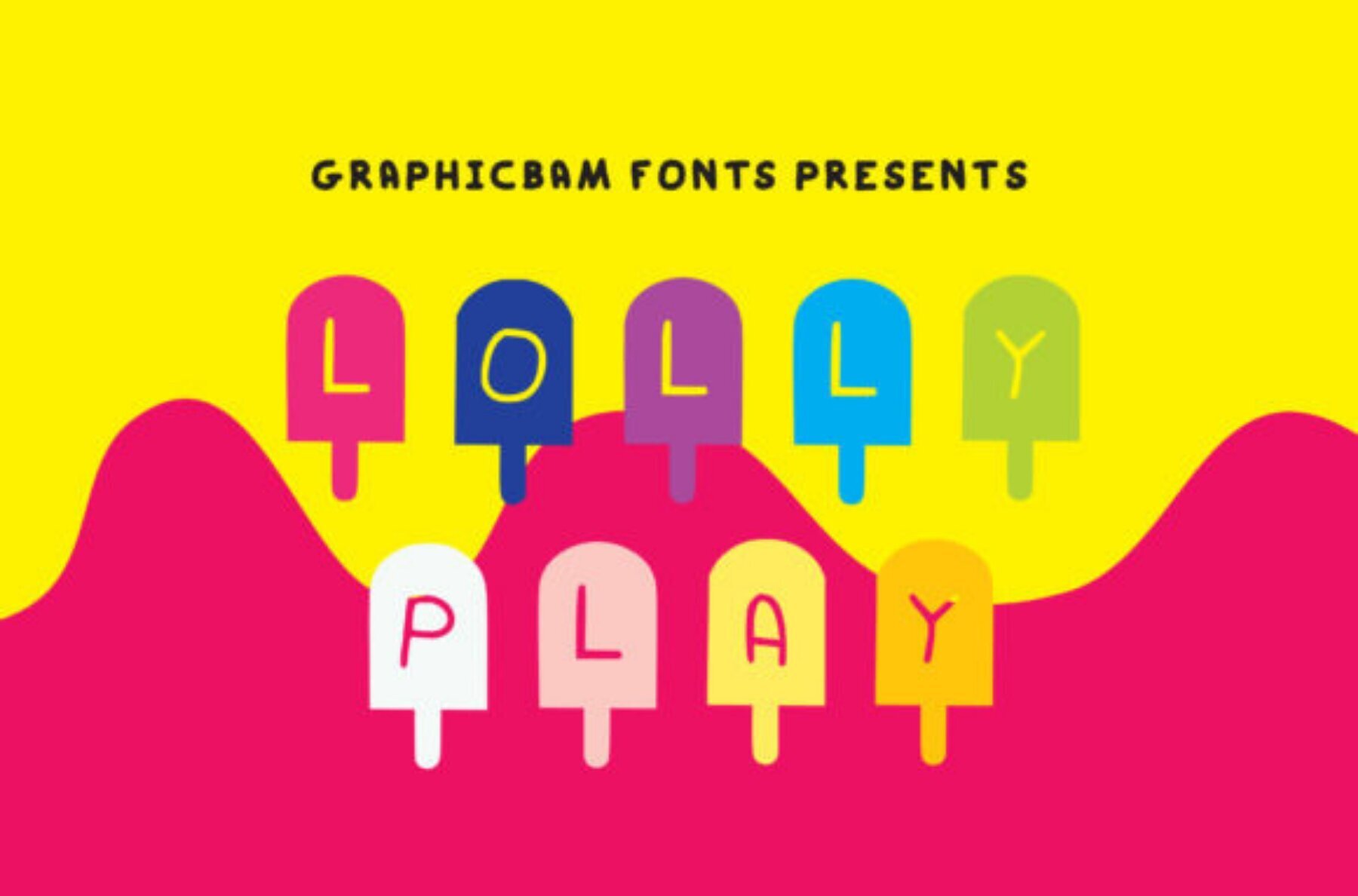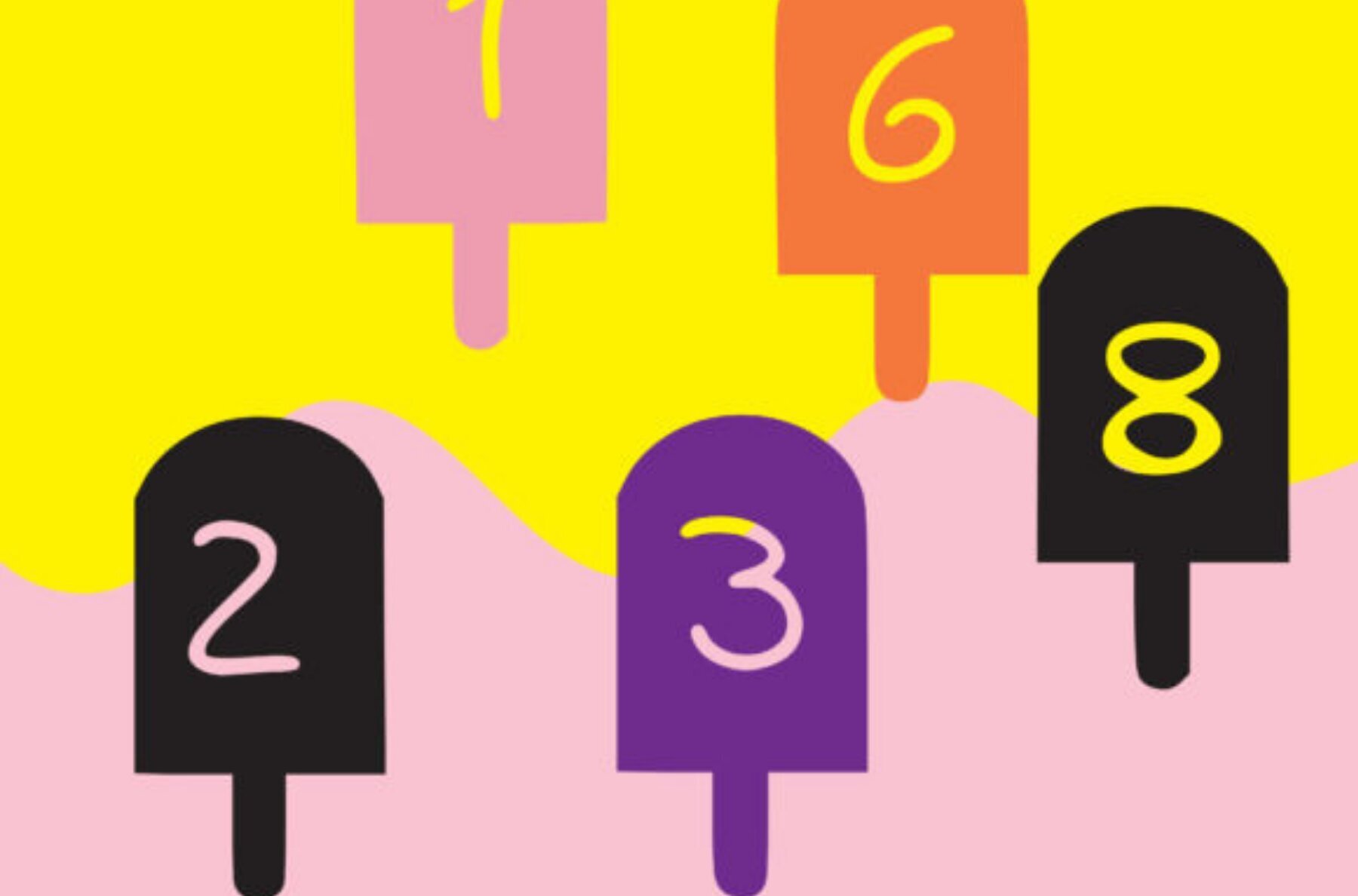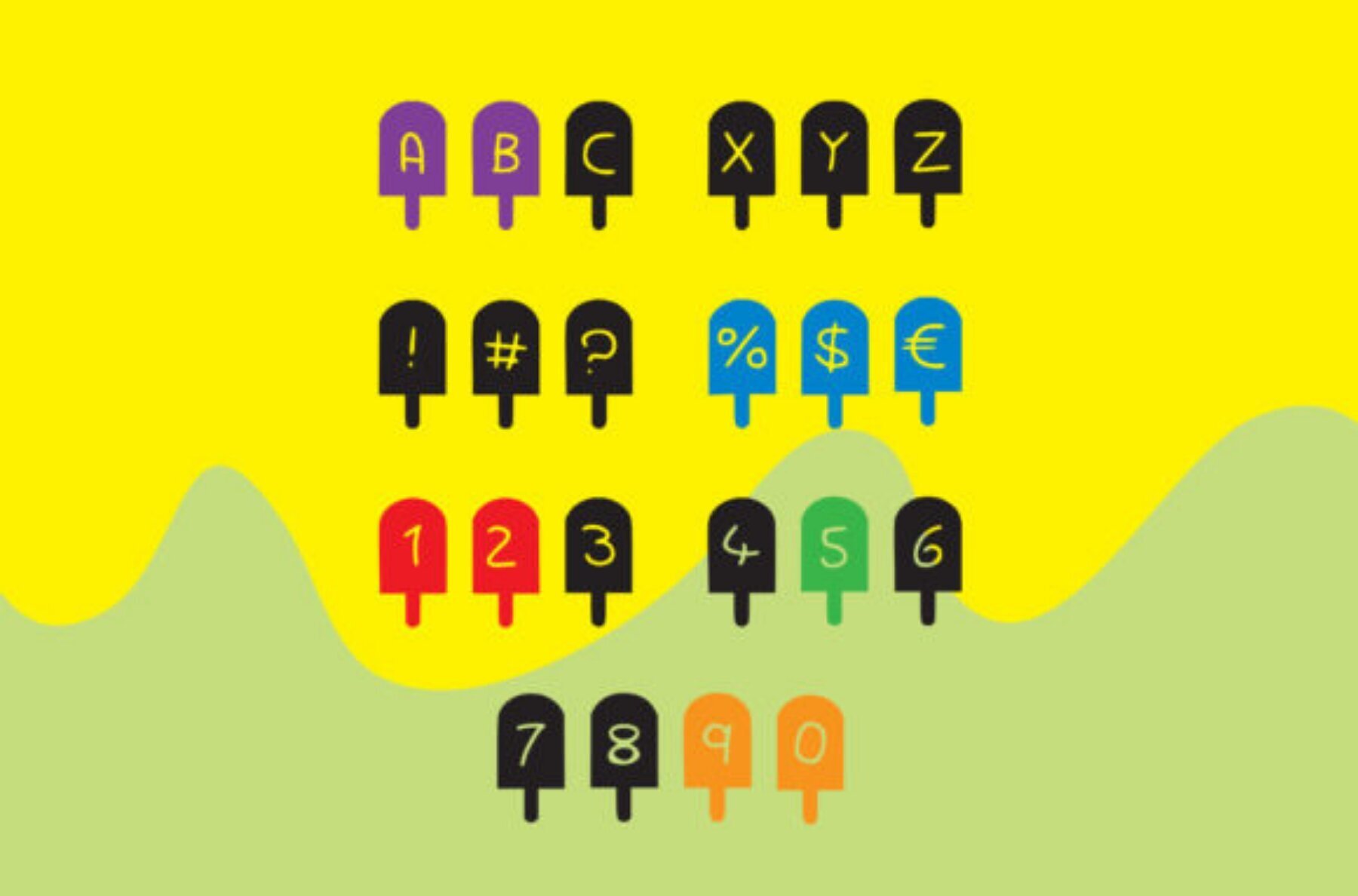
Lolly Play Font
Lolly Play
Bring a dash of fun to your projects with Lolly Play, a delightful font inspired by the whimsical charm of ice pops. Designed with a playful, childlike touch, its rounded edges and friendly style make it perfect for any project celebrating the joy of summer treats. Whether you're working on educational materials, home teaching resources, or craft endeavors, Lolly Play adds an extra layer of joy and creativity. Explore the full "Play" font set, offering five versatile weights to suit all your design needs. Lolly Play is your ideal companion for vibrant, imaginative projects that aim to engage and inspire.Lolly Play Font Set